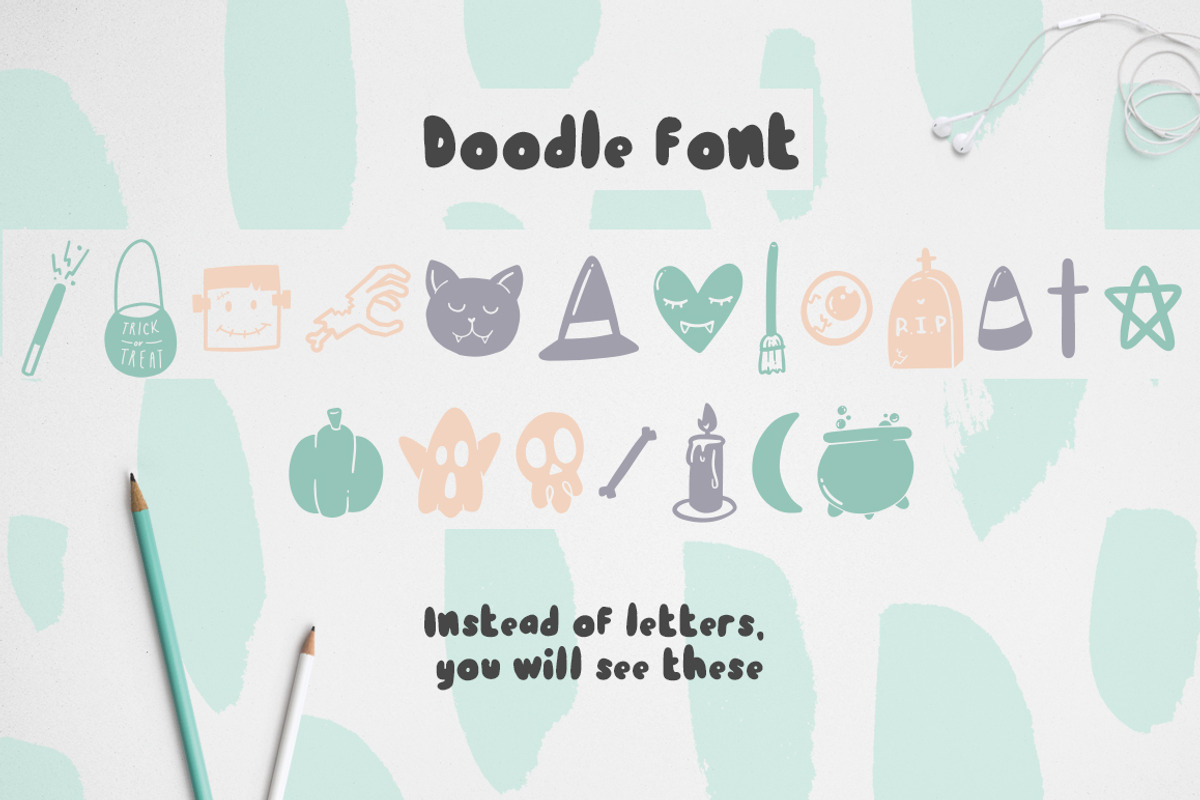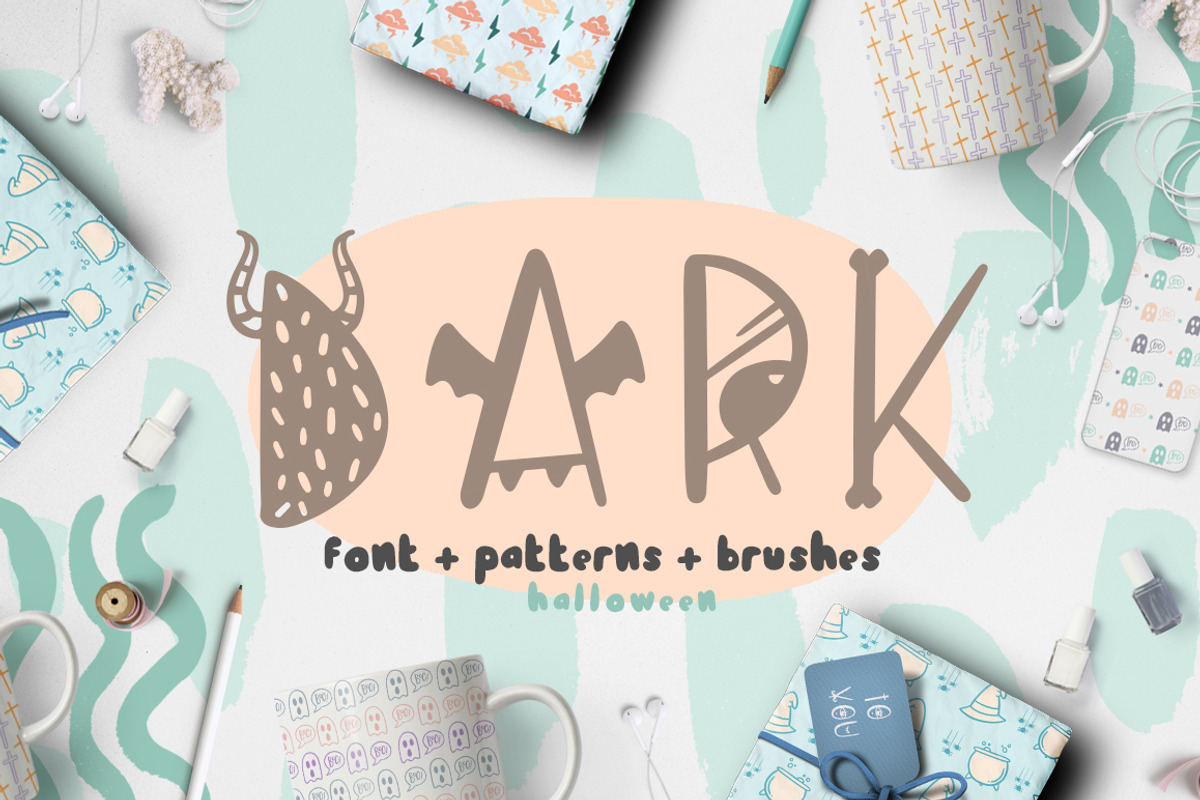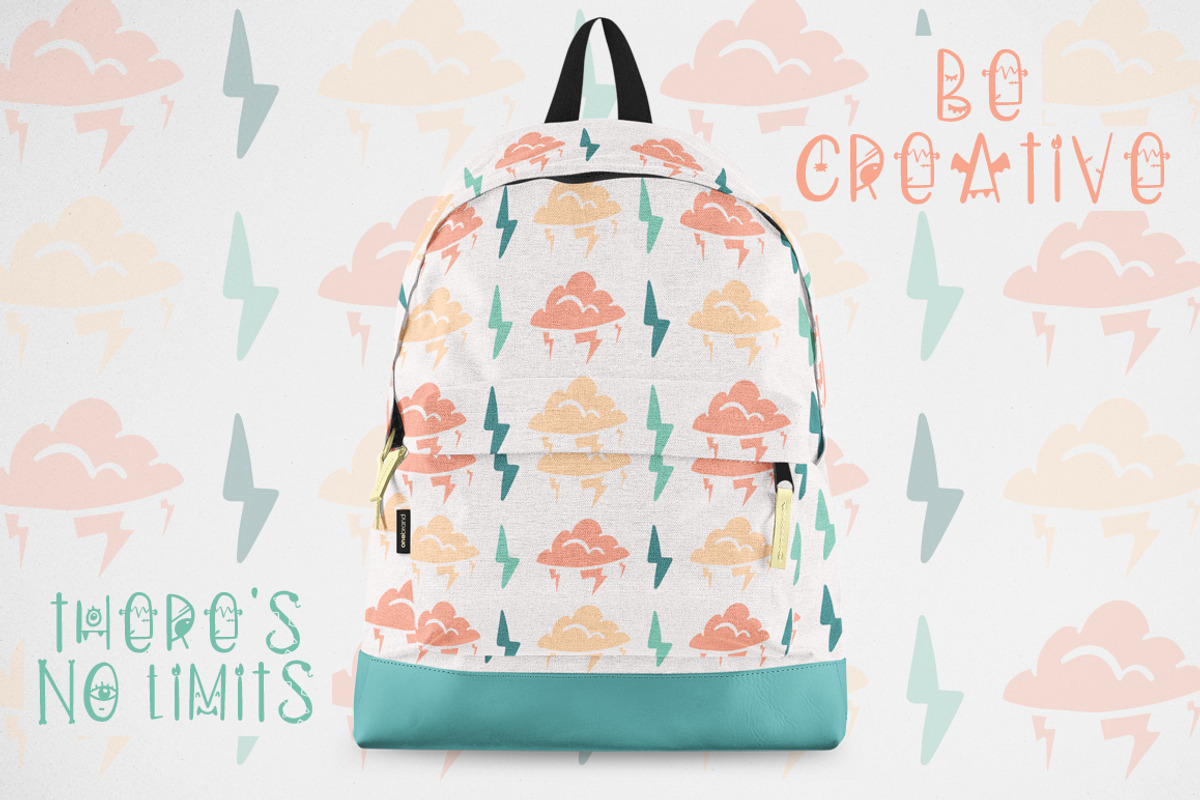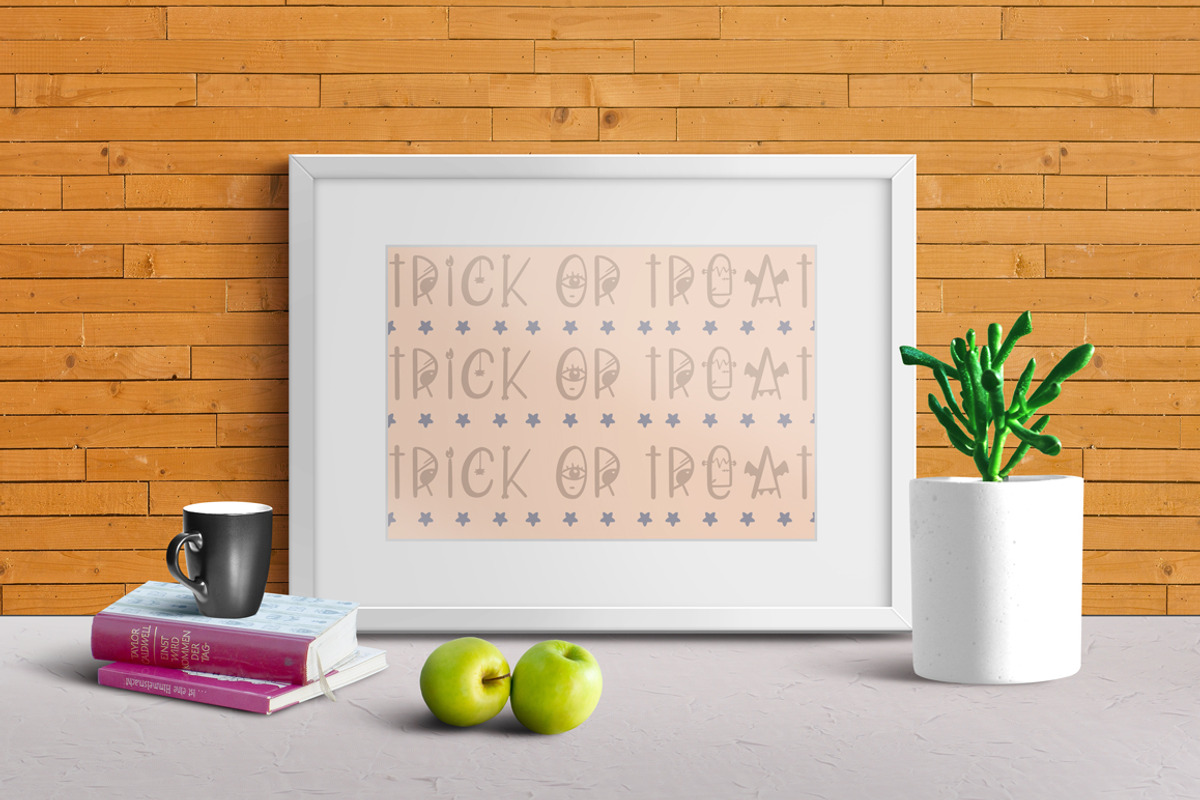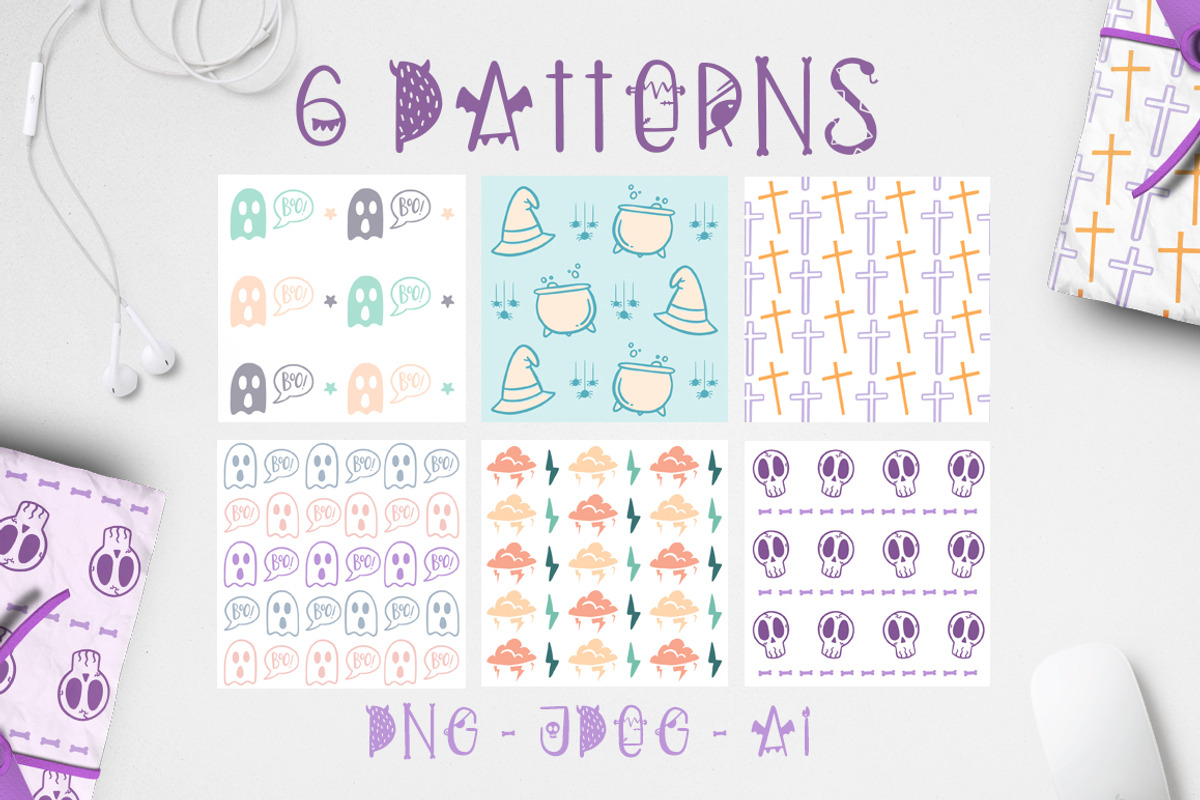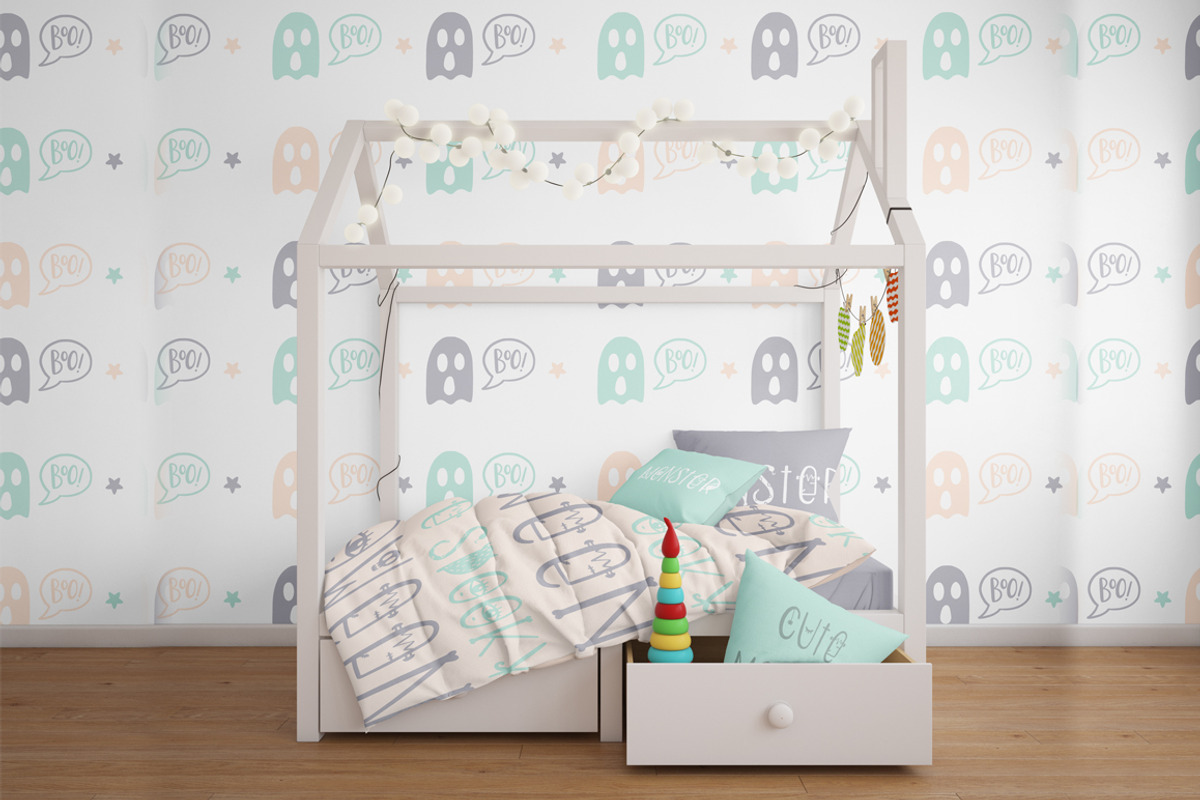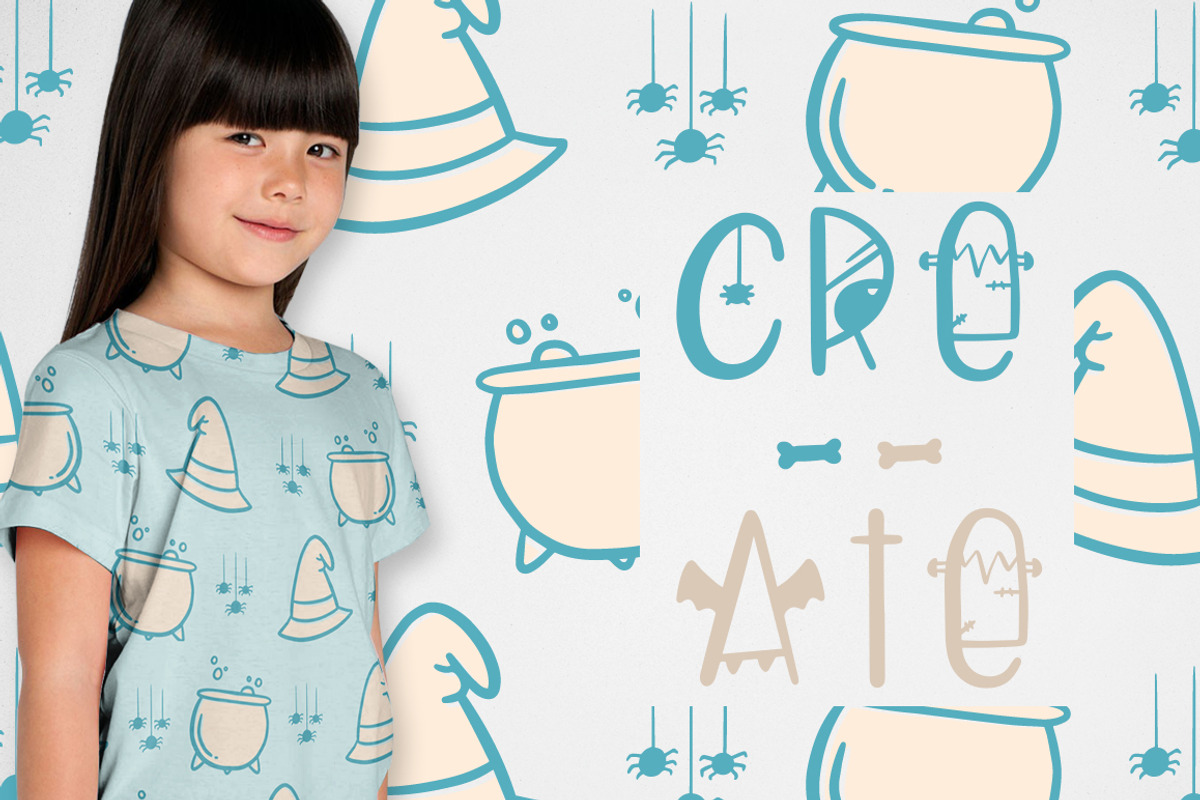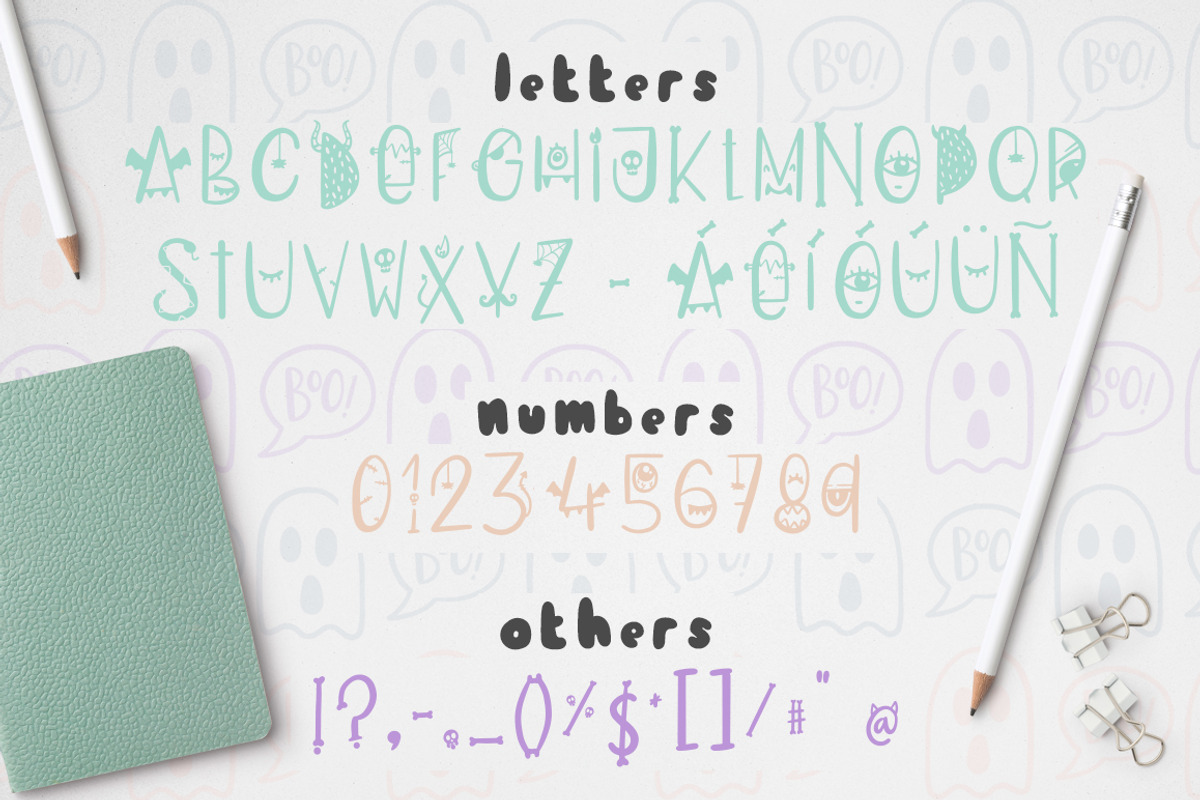
Dark font + patterns, brushes, MORE!
Dark font + patterns, brushes and MORE! October it's finally here and we all know what that means: halloween! Dark is a playful font with a lot of personality, and this product also brings amazing patterns, illustrator brushes and a doodle font. Amazing right?
With this product I didn't want to use the typical halloween colors, that's why i made it so girly and childish. A different way to design our halloween stufff.
create invitations and cards. You can also use this in your social media designs.
Design beautiful shirts for children and yourself!
Use the brushes to create your own patterns or decorative borders